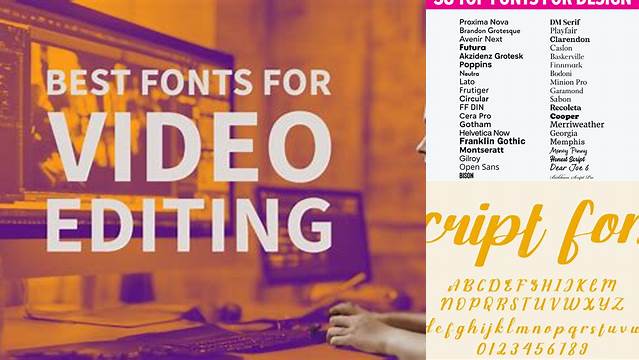
Best Fonts For Editing: A 2024 Guide
Introduction: Diving into the World of Editing Fonts
Hey guys! Ever wondered how much of an impact the right font can have on your creative projects? Fonts are not just about making words visible; they're about conveying a mood, a message, and a style. Whether you're designing a website, crafting a poster, or editing a video, the fonts you choose play a crucial role in the overall aesthetic and effectiveness of your work. In this guide, we'll explore some of the most popular fonts used in editing today, giving you the insights you need to make the best choices for your projects. Think of fonts as the voice of your design – they can shout, whisper, or sing, and picking the right one is like casting the perfect actor for a role. Seriously, fonts can make or break a project! This comprehensive exploration isn't just a list; it's a deep dive into understanding how typography influences perception, enhances readability, and strengthens your brand identity. We'll cover everything from classic serifs to modern sans-serifs, and even some cool display fonts that can add a unique flair to your work. So, grab a coffee, settle in, and let's get font-astic! We'll break down the key characteristics of each font, discuss their ideal use cases, and provide examples to illustrate their effectiveness. By the end of this guide, you'll be equipped with the knowledge to confidently select fonts that not only look great but also align perfectly with your creative vision. Plus, we'll touch on some common font pairing strategies and resources for discovering new and exciting typefaces. Let's unlock the power of typography together and elevate your editing game to the next level. Remember, the best designs are those where every element works in harmony, and fonts are a fundamental part of that equation. Let’s make your projects visually stunning and communicate your message with clarity and style!
Serif Fonts: The Timeless Classics
When we talk about classic and timeless fonts, serif fonts immediately come to mind. These fonts are characterized by the small decorative strokes, or “serifs,” at the end of each letter. Serif fonts are often associated with tradition, authority, and elegance, making them ideal for projects that need a touch of sophistication. Think of them as the tailored suit of the font world – always in style and exuding professionalism. One of the most popular serif fonts is Times New Roman. It’s a workhorse that has been used extensively in print media for decades. While it might be considered a bit overused in some circles, its readability and familiarity make it a solid choice for long blocks of text, like in books or articles. Another great serif font is Garamond, known for its graceful curves and readability. Garamond has a more refined and elegant feel compared to Times New Roman, making it suitable for more upscale projects, such as invitations or high-end publications. Then there’s Georgia, a serif font specifically designed for screen readability. Its generous proportions and clear letterforms make it an excellent choice for websites and digital publications. Georgia maintains a classic serif look while ensuring a comfortable reading experience on various devices. Beyond these stalwarts, there are many other fantastic serif fonts to explore, each with its own unique personality. Fonts like Playfair Display offer a touch of modern elegance, while fonts like Merriweather provide a sturdy and reliable option for body text. When choosing a serif font, consider the overall tone and message of your project. Are you aiming for formality and tradition, or a more contemporary and approachable feel? The right serif font can set the stage for your entire design, conveying your message with clarity and style. Remember, the power of a serif lies in its ability to add a sense of history and gravitas to your work. Let’s delve deeper into how these classic fonts can enhance your projects and create a lasting impression.
Sans-Serif Fonts: Modern and Minimalist
Now, let's shift our focus to the world of sans-serif fonts, the sleek and modern cousins of serif fonts. Sans-serif fonts, as the name suggests, lack the decorative strokes (serifs) found in their counterparts. This gives them a cleaner, more minimalist appearance, making them a popular choice for contemporary designs. If serif fonts are the tailored suit, sans-serif fonts are the stylish, minimalist outfit – perfect for a modern and streamlined look. One of the most widely used sans-serif fonts is Arial. It’s a versatile and highly readable font that works well in a variety of applications, from websites to presentations. While some might see it as a bit generic, its ubiquity means it’s universally recognizable and legible. Helvetica is another iconic sans-serif font, known for its clean lines and neutral appearance. It’s often used in corporate branding and signage due to its clarity and legibility. Helvetica's simplicity allows it to adapt to various design contexts without drawing too much attention to itself. Open Sans is a fantastic sans-serif font that’s specifically designed for on-screen readability. Its open letterforms and clean design make it a great choice for websites and mobile apps. Open Sans strikes a balance between modernity and legibility, making it a go-to for digital interfaces. In addition to these popular choices, there are many other excellent sans-serif fonts to explore. Roboto is a modern font family that’s widely used on Android devices, offering a clean and approachable feel. Lato is another great option, known for its semi-rounded details that add a touch of warmth to its minimalist design. When selecting a sans-serif font, think about the message you want to convey. Are you aiming for a modern and tech-savvy feel, or a more approachable and friendly vibe? The right sans-serif font can give your project a contemporary edge while ensuring readability and clarity. These fonts are the workhorses of modern design, providing a clean and efficient way to communicate your message. Let’s continue to explore how these versatile fonts can elevate your projects and create a lasting impression in today's fast-paced digital world.
Display Fonts: Adding Personality and Flair
Moving on to display fonts, these are the rockstars of the typography world! Display fonts are designed to grab attention and add personality to your projects. Unlike serif and sans-serif fonts, which are often used for body text, display fonts are best used for headlines, titles, and other short bursts of text where you want to make a statement. Think of them as the statement jewelry of the font world – bold, eye-catching, and designed to stand out. One popular category of display fonts is script fonts, which mimic the look of handwriting. Brush Script is a classic example, with its flowing lines and casual feel. Script fonts can add a touch of elegance and personality to your designs, making them ideal for invitations, posters, and other creative projects. However, it's important to use them sparingly, as they can be less legible in large blocks of text. Another exciting category is decorative fonts, which come in a wide range of styles and aesthetics. Impact is a bold and powerful decorative font that’s often used for headlines and posters. Its thick strokes and condensed letterforms make it highly impactful, ensuring your message gets noticed. Then there are vintage-inspired display fonts, which evoke a sense of nostalgia and charm. These fonts often feature unique details and intricate designs that add character to your projects. Examples include fonts like Bebas Neue, a tall and condensed sans-serif that’s perfect for headlines, and Oswald, a versatile font with a slightly vintage feel. When choosing a display font, it’s crucial to consider the overall tone and message of your project. A playful and whimsical font might be perfect for a children’s book, while a bold and modern font might be more appropriate for a tech startup’s branding. The key is to select a font that complements your design and enhances your message, without overwhelming the viewer. Display fonts are all about making a statement, so don’t be afraid to experiment and have fun! They offer a fantastic way to inject personality and flair into your work, helping you create designs that truly stand out. Let’s keep exploring how these dynamic fonts can transform your projects and leave a lasting impression on your audience.
Font Pairing: Creating Visual Harmony
Now that we've explored different types of fonts, let's talk about font pairing: the art of combining fonts to create visual harmony. Font pairing is a crucial skill for any designer, as the right combination of fonts can elevate your design and make it more engaging. Think of it as putting together a stylish outfit – you want pieces that complement each other and create a cohesive look. A classic approach to font pairing is to combine a serif font with a sans-serif font. This creates a contrast that's visually appealing and easy to read. For example, you might pair Garamond (a serif font) with Helvetica (a sans-serif font) for a sophisticated and balanced look. Garamond’s elegance combined with Helvetica’s simplicity results in a timeless combination. Another effective strategy is to use different weights and styles within the same font family. For instance, you could use a bold version of Open Sans for headlines and a regular weight for body text. This creates a hierarchy and visual interest while maintaining a cohesive feel. This approach maintains a consistent brand identity while adding necessary distinction. When pairing fonts, it’s important to consider the mood and message of your project. Are you aiming for a formal and professional look, or a more casual and playful vibe? Choose fonts that reflect the tone you want to convey. For a modern and minimalist design, you might pair Lato (a sans-serif font) with Montserrat (another sans-serif font). These fonts have similar clean lines and contemporary feel, creating a harmonious combination. It’s also important to ensure that your font pairing is legible. Avoid using two highly decorative fonts together, as this can make your design look cluttered and difficult to read. Stick to one display font for headlines and use a simpler font for body text. Remember, the goal of font pairing is to create a visual hierarchy and guide the viewer’s eye through your design. A well-chosen font pairing can enhance readability, add personality, and make your project more visually appealing. Let’s continue to delve deeper into how mastering font pairing can transform your design projects and create a lasting impression on your audience. It’s all about finding the perfect balance and creating a harmonious visual experience.
Conclusion: Mastering the Art of Font Selection
So, guys, we've journeyed through the fascinating world of fonts, exploring serifs, sans-serifs, display fonts, and the crucial art of font pairing. As you can see, fonts are far more than just letters on a page – they are powerful tools that can shape the look, feel, and effectiveness of your designs. Mastering font selection is about understanding the nuances of different typefaces and how they communicate your message. It's about knowing when to use a classic serif for a touch of elegance, a modern sans-serif for a clean look, or a bold display font to make a statement. Think of fonts as the voice of your design – they can speak volumes without saying a word. The key takeaway here is to be intentional with your font choices. Don't just pick a font because it looks nice; consider how it aligns with your project's goals and target audience. Does it convey the right mood? Is it legible and readable? Does it complement the other elements of your design? By asking these questions, you'll be well on your way to making informed font decisions that enhance your work. Remember, font pairing is an art in itself. Experiment with different combinations to find what works best for your project. Don’t be afraid to break the rules, but always prioritize readability and visual harmony. A well-paired set of fonts can elevate your design and create a cohesive and engaging experience for your audience. Finally, stay curious and continue to explore the vast world of typography. There are countless fonts out there, each with its own unique personality and potential. The more you experiment and learn, the better you'll become at harnessing the power of fonts to bring your creative visions to life. Let’s continue to push the boundaries of design, one font at a time. With a keen eye and a thoughtful approach, you can transform your projects and leave a lasting impression on your audience. Happy designing!